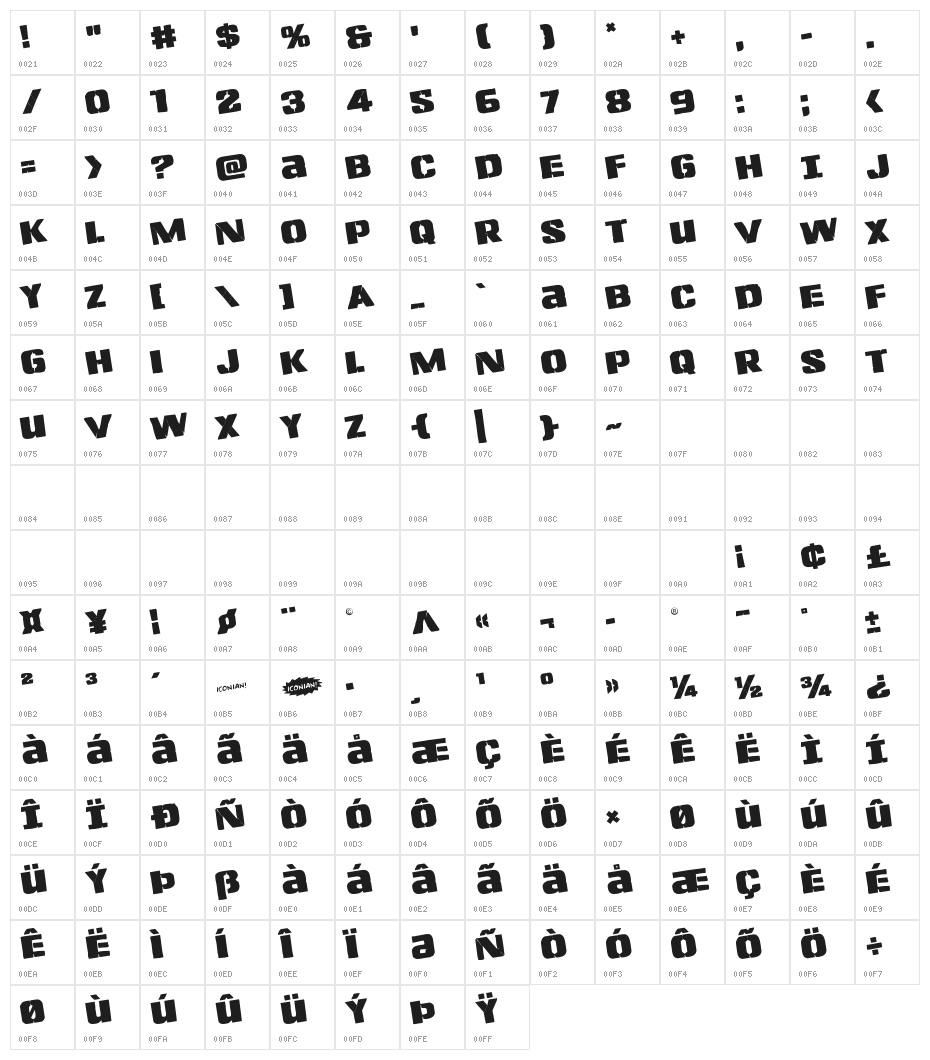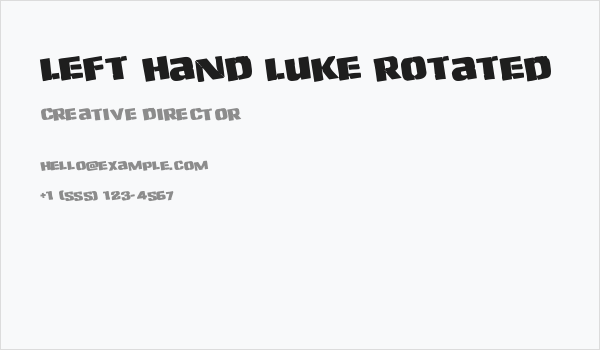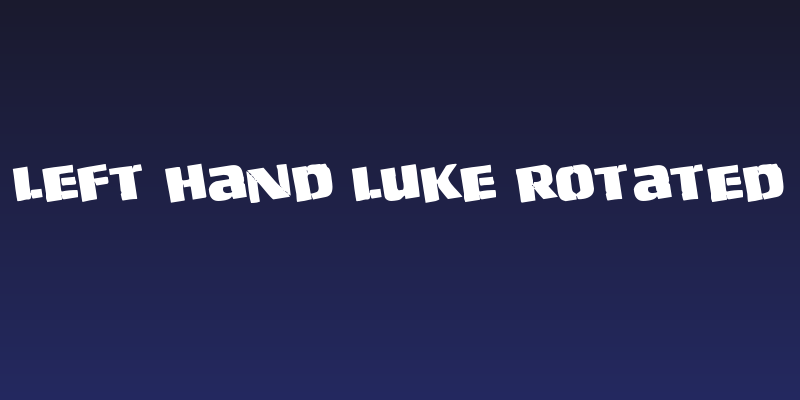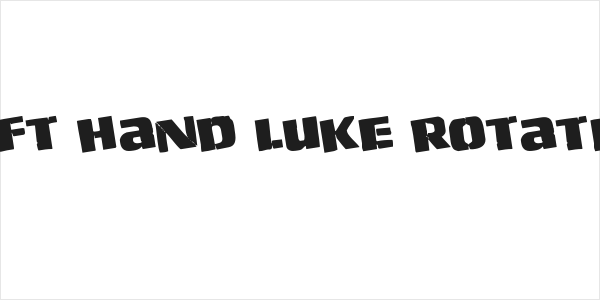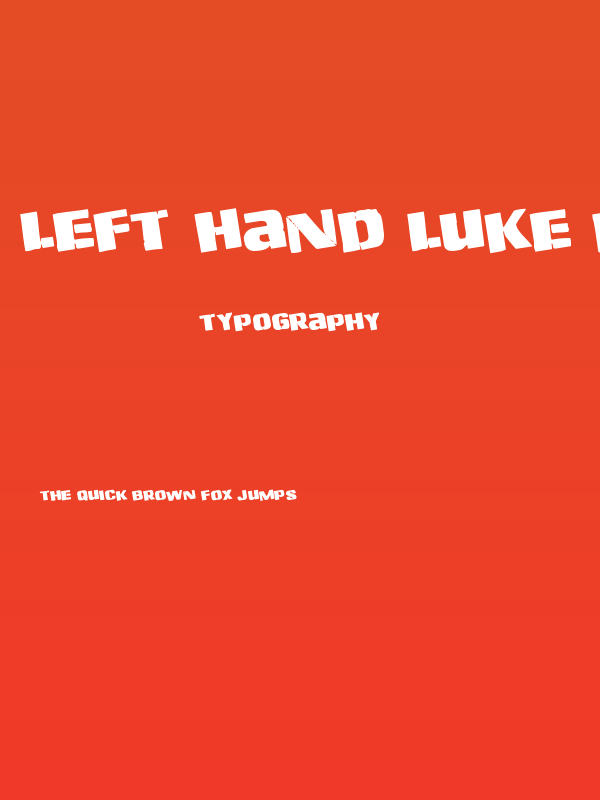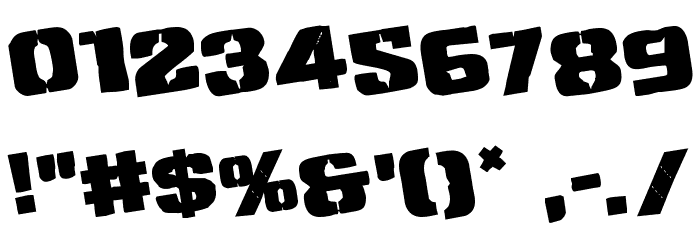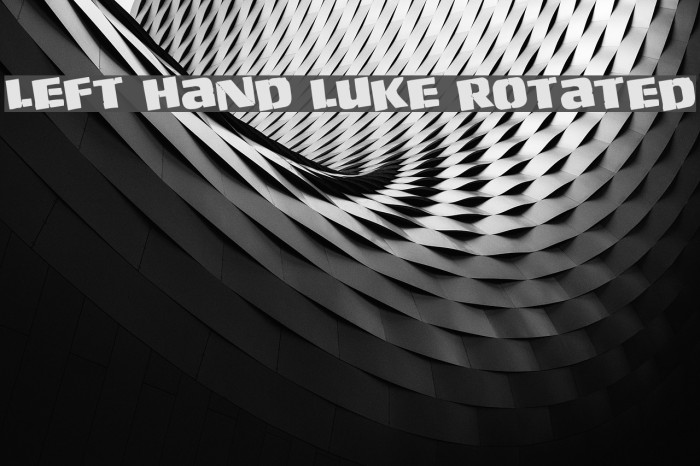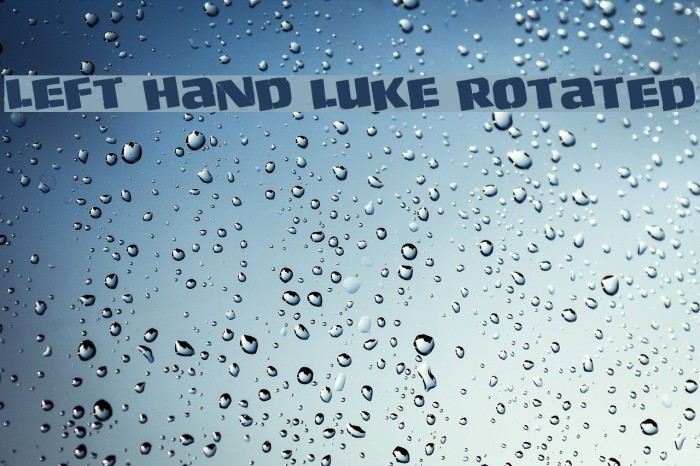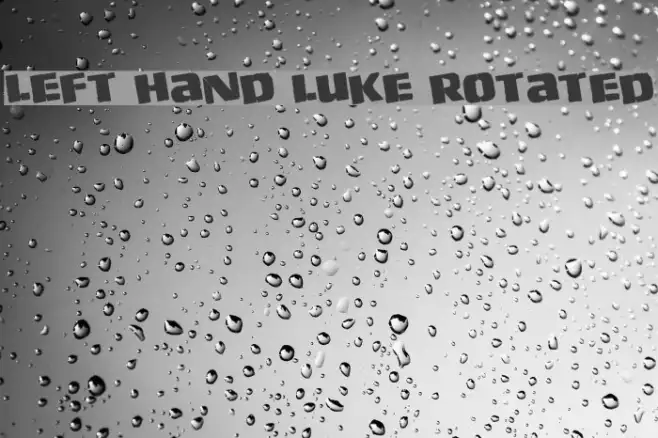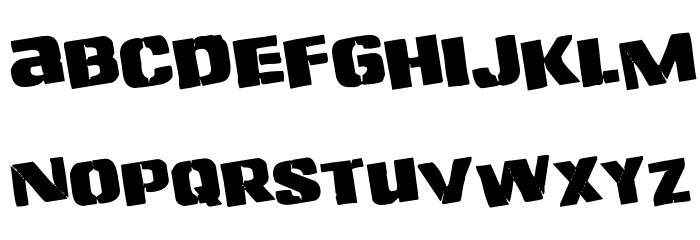
Left Hand Luke Rotated Font
Left Hand Luke Rotated Description
This font features a bold, distressed style with a rugged, stencil-like appearance. The characters are heavily weighted with irregular edges, giving them a rough, industrial look. The uppercase and lowercase letters maintain a consistent height, while the numbers and special characters follow the same bold, impactful design. The font's unique style is reminiscent of urban graffiti or military stencils, making it stand out with its strong visual presence.
LEFT-HAND-LUKE-ROTATED UPPERCASE
LEFT-HAND-LUKE-ROTATED LOWERCASE
LEFT-HAND-LUKE-ROTATED OTHER CHARS
| Overall Style | Urban, Industrial |
| Proposed Projects | Ideal for projects that require a strong, industrial aesthetic such as posters, album covers, or branding for edgy, urban-themed products. |